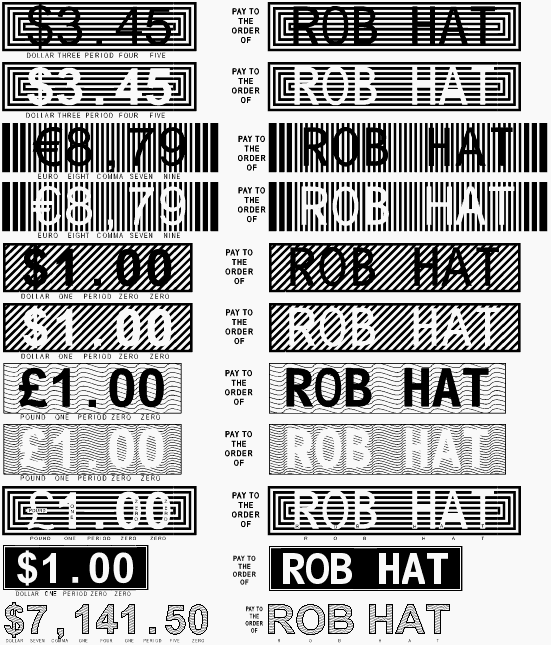
Secure Number Fonts | v3.6
This font set includes 26 different fonts, in both TrueType and PostScript formats, for printing checks. Each font can print both the check amount and the name of the payee. These Secure Fonts™ are designed to be very difficult to alter or forge. Secure Fonts™ includes Secure Number™ and Secure Name™ characters. Odd numbered font names (Secure 1, 3, 5, 7, 9, 11, 13, 15, 17, 19, 21, 23, and 25) display just the Secure characters, while even numbered font names (Secure 2, 4, 6, 8, 10, 12, 14, 16, 18, 20, 22, 24, and 26) show text below each secure character. (Fonts with printed text below each character must be printed on a 600 dpi or higher printer.) Each font offers a number of different ways to vary the overall Secure Font™ line. Our examples below demonstrate some of the ways to do this. These fonts support checks in dollars, cents, pounds sterling, yen, and the euro. All lower case letters are mapped to corresponding upper case letters in Secure Fonts 1 – 22. Secure fonts 23 – 26 support low case letters and most Western European languages.